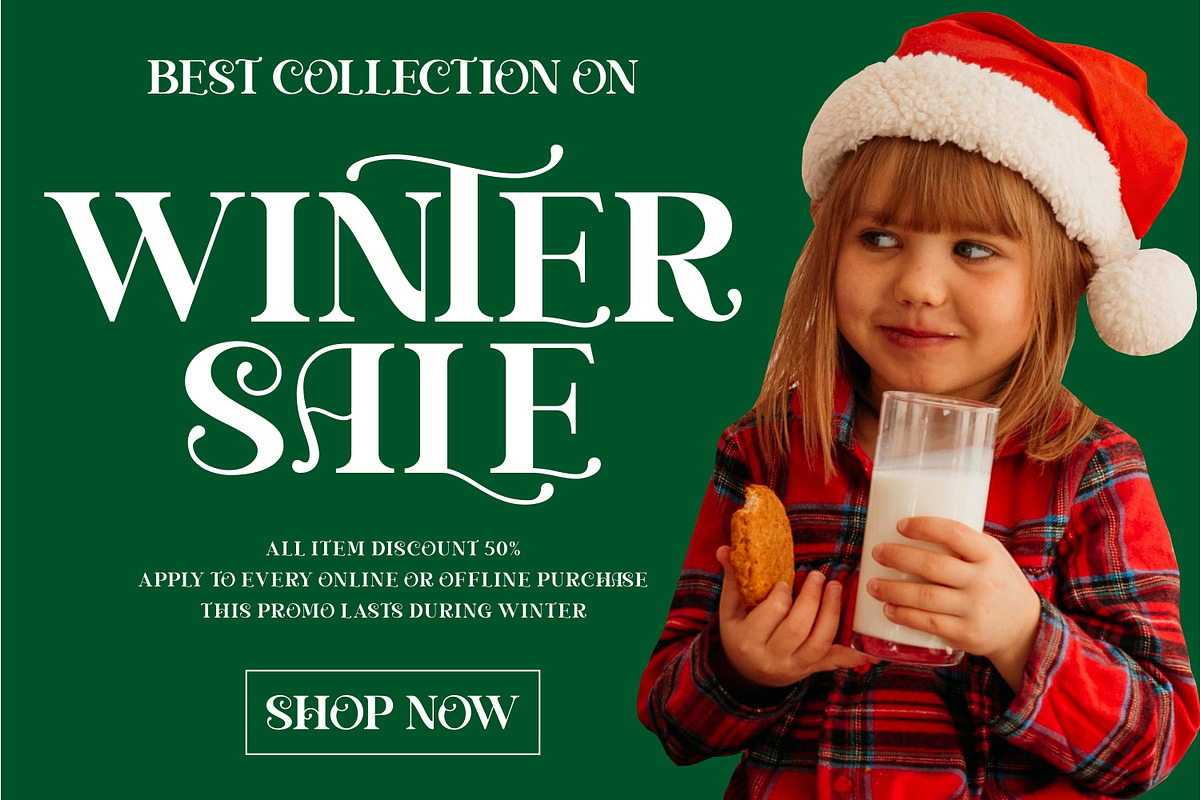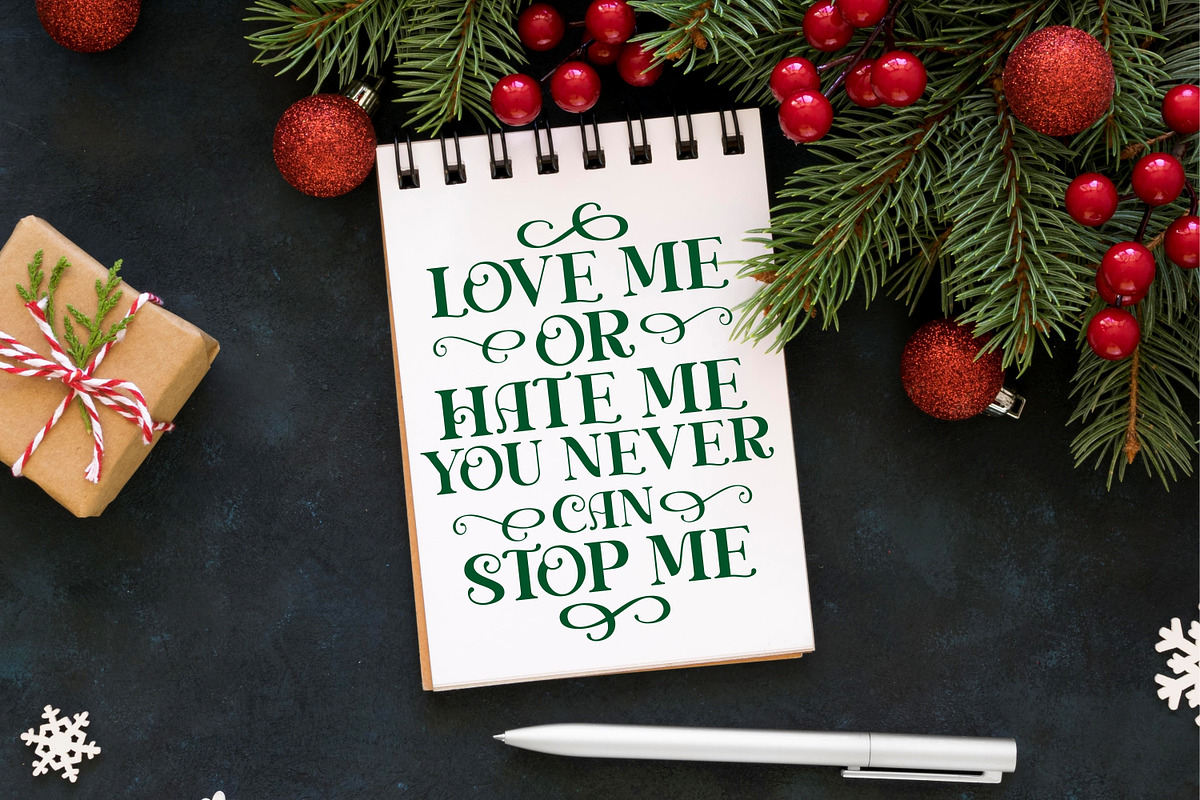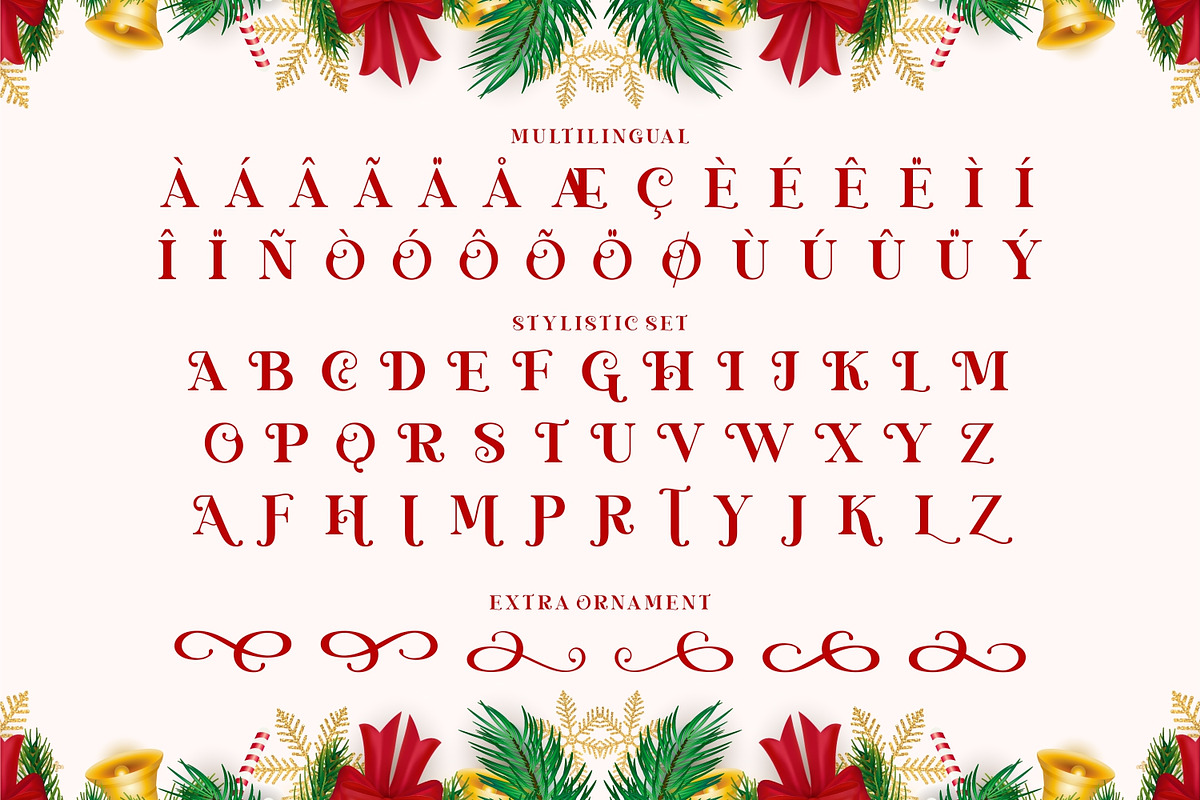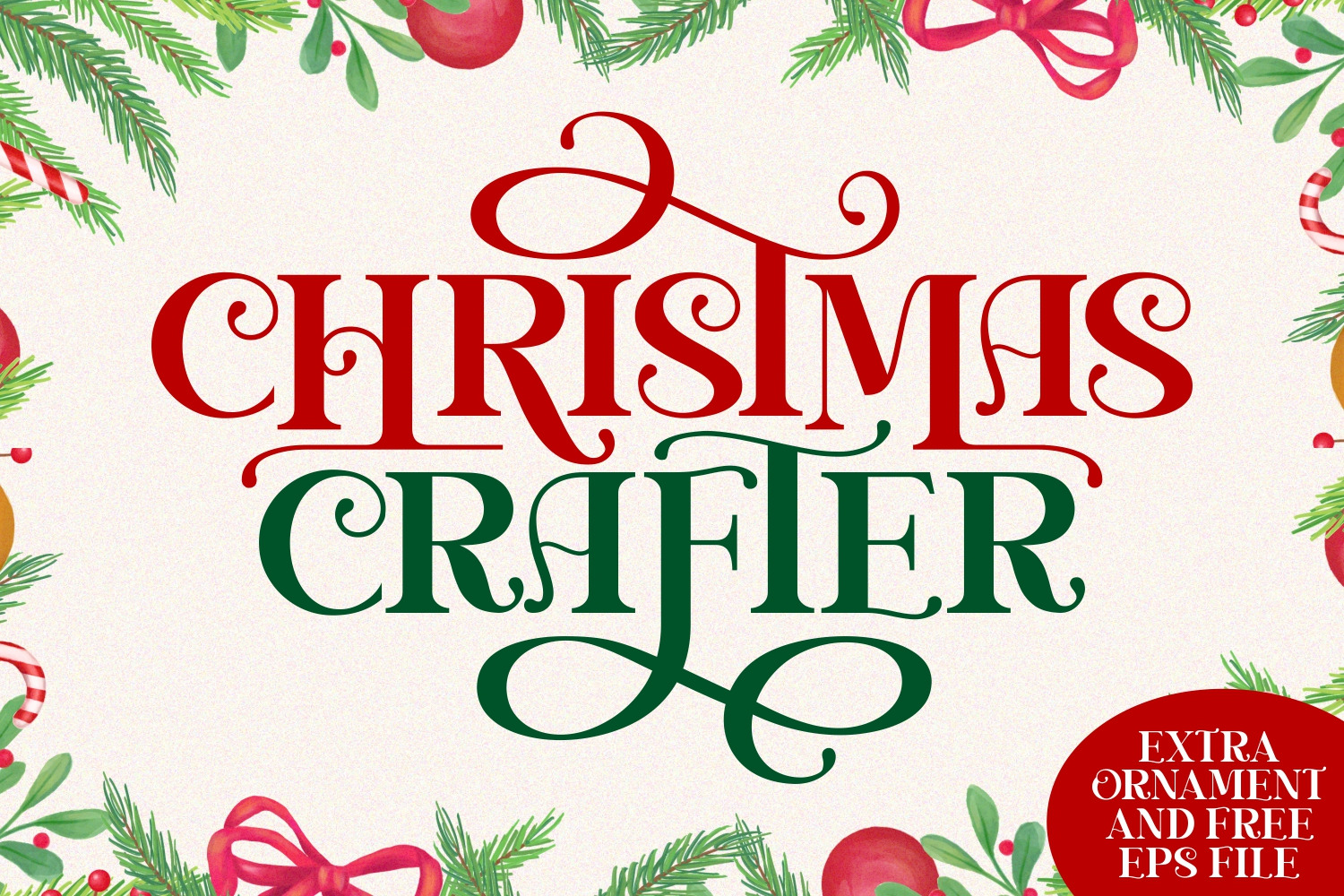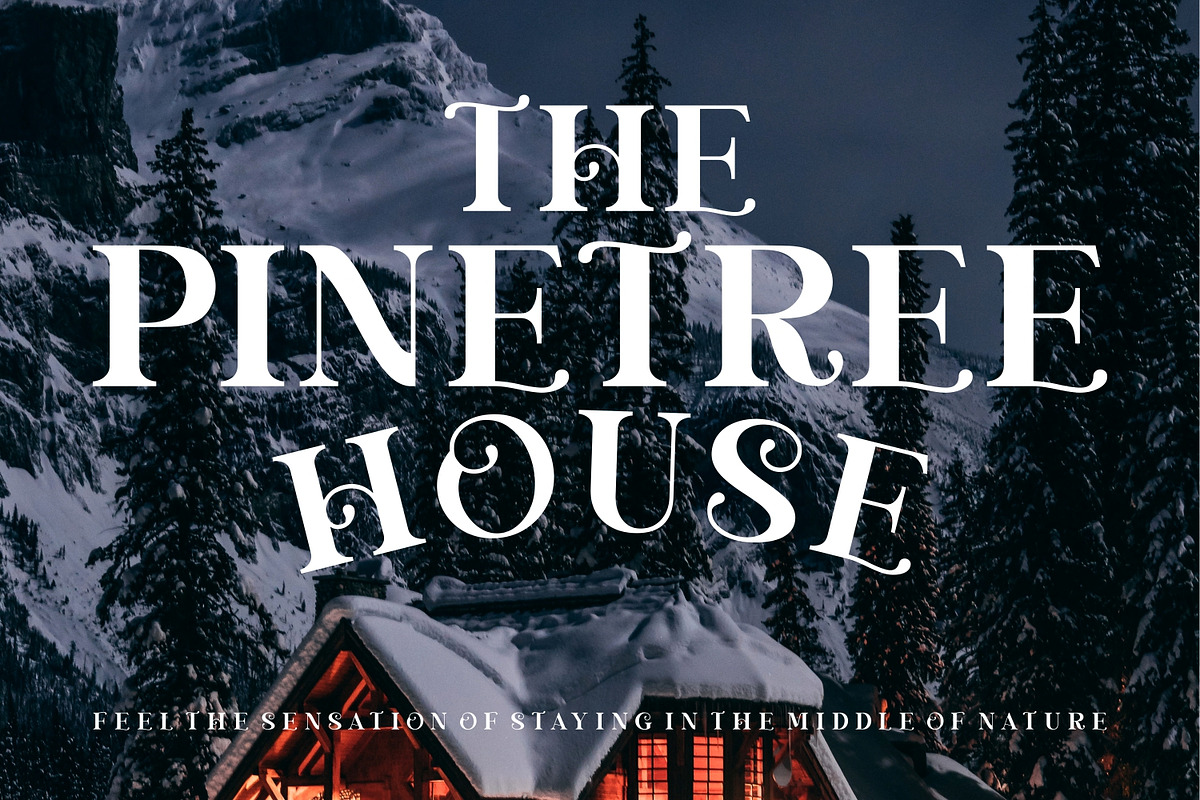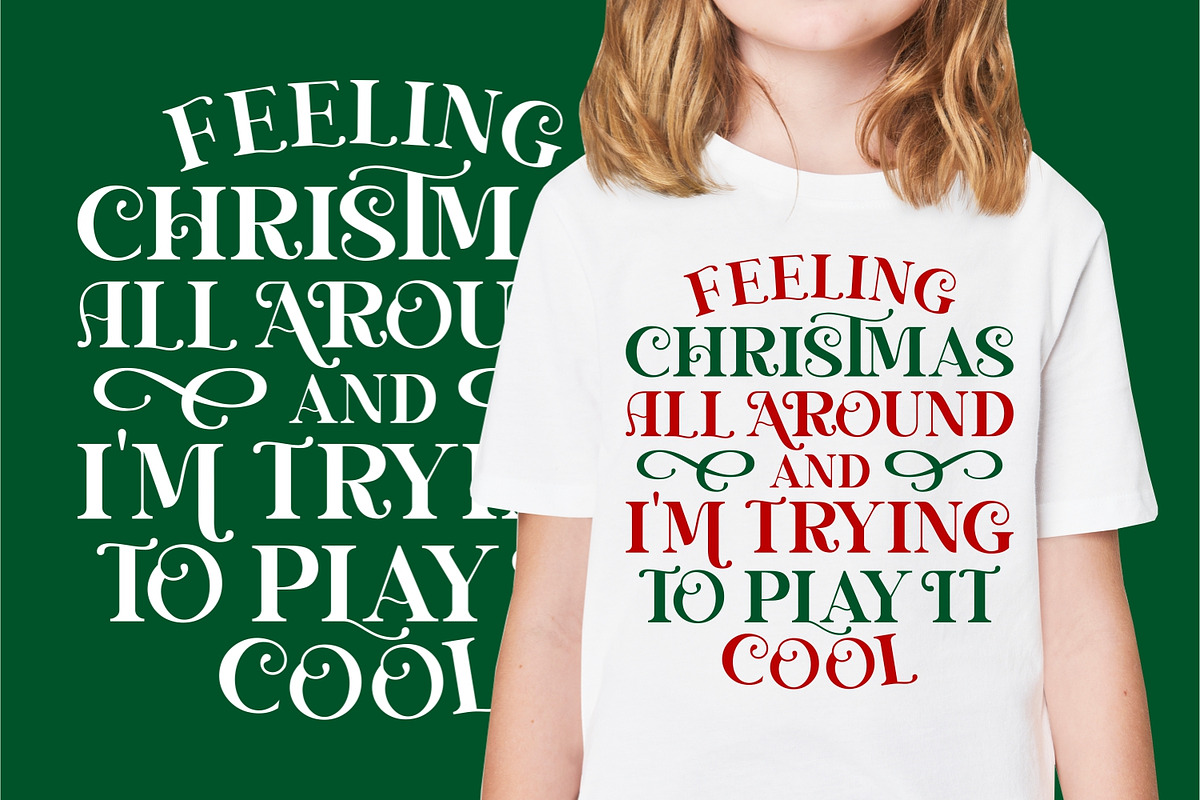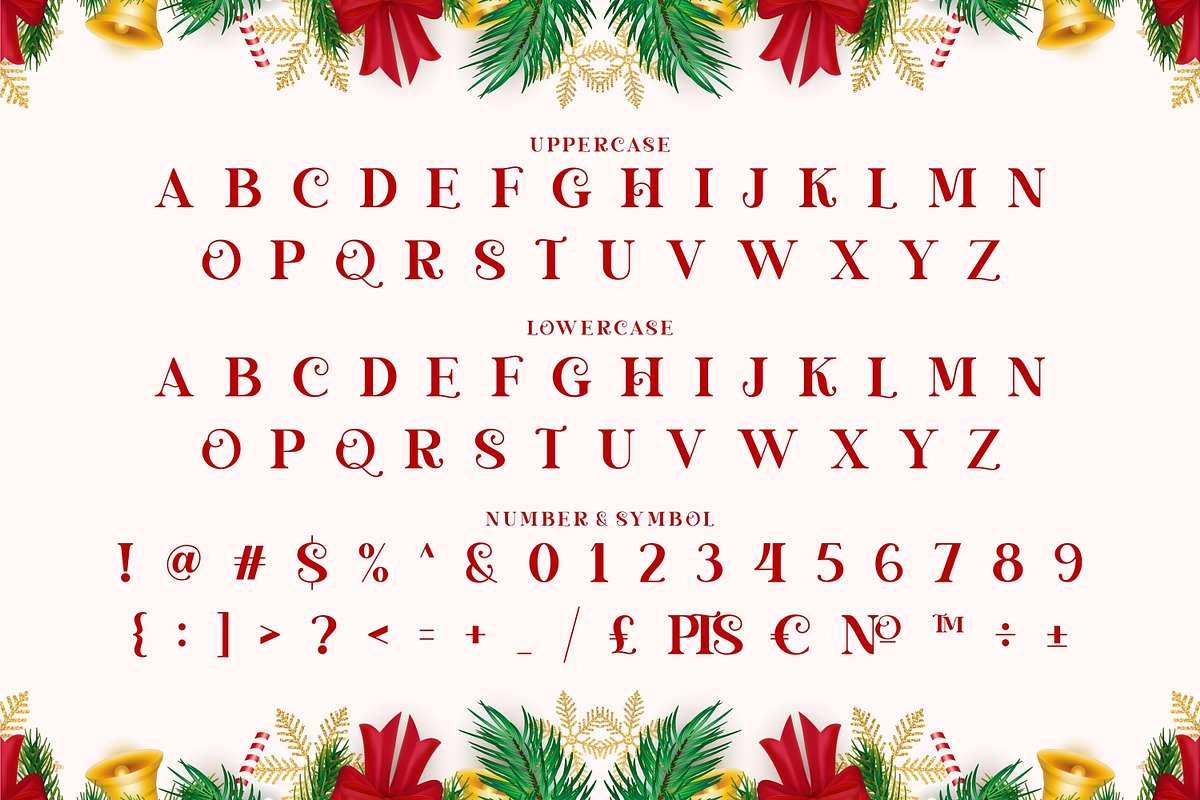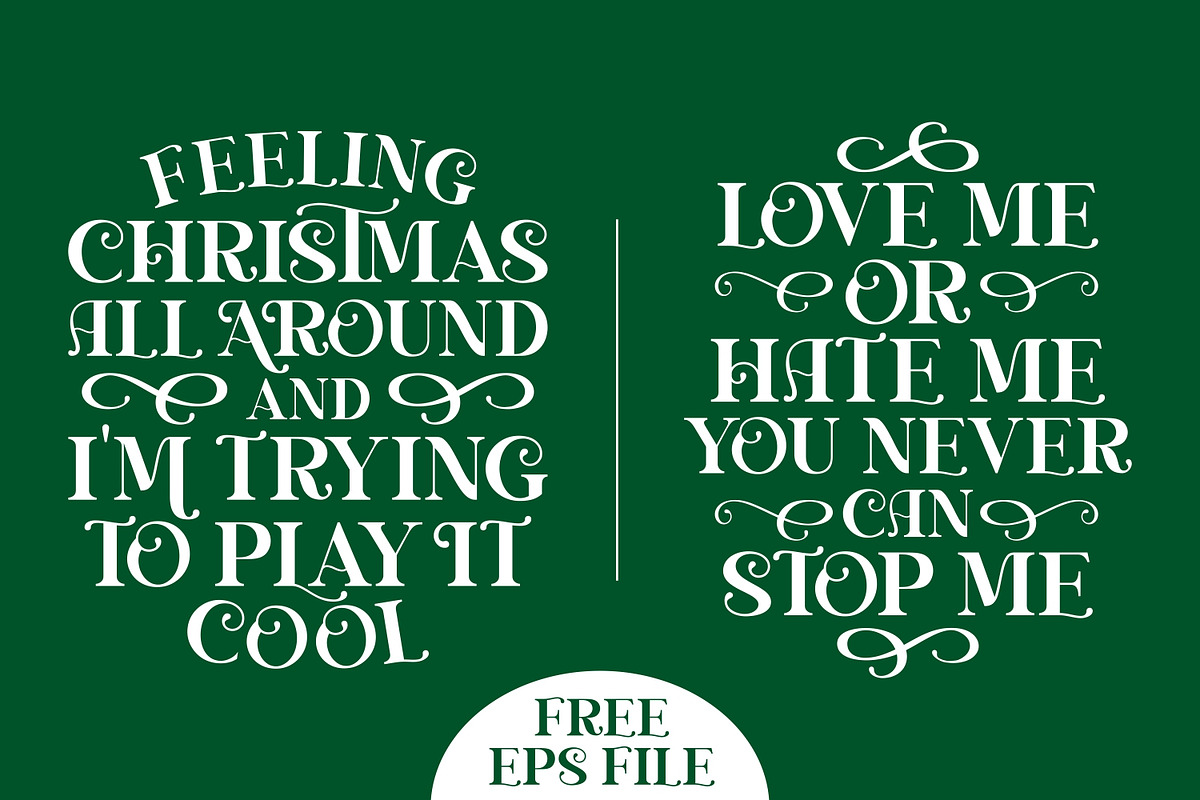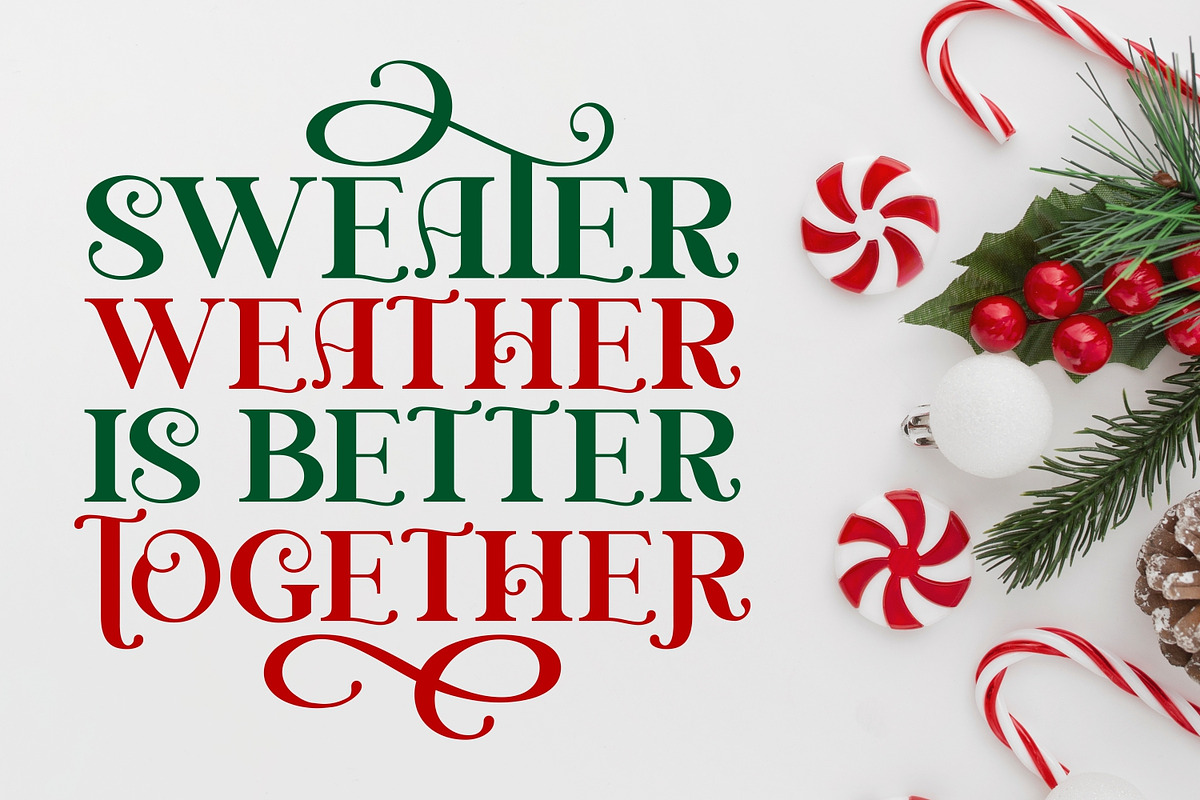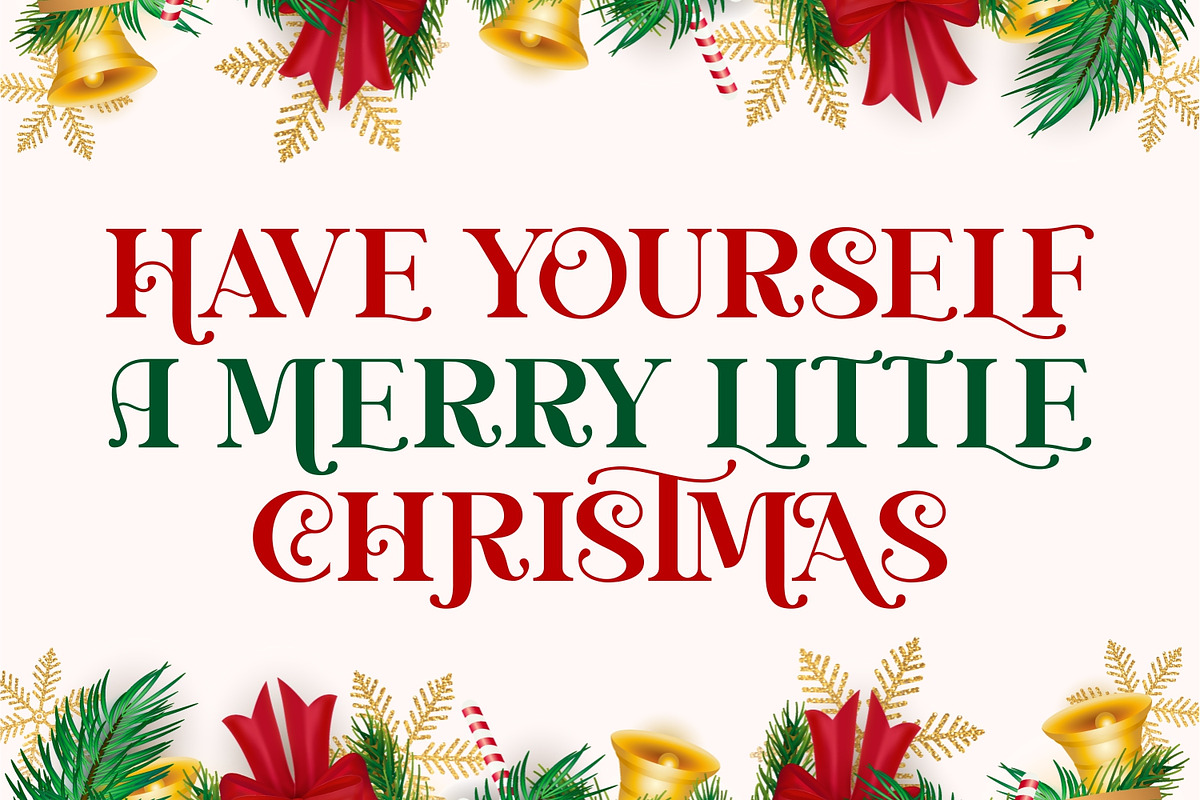
Christmas Crafter - Christmas Font
Christmas Crafter is a festive and whimsical serif font. It is PUA encoded which means you can access all of the glyphs and swashes with ease! Add it confidently to your projects, and you will love the results.